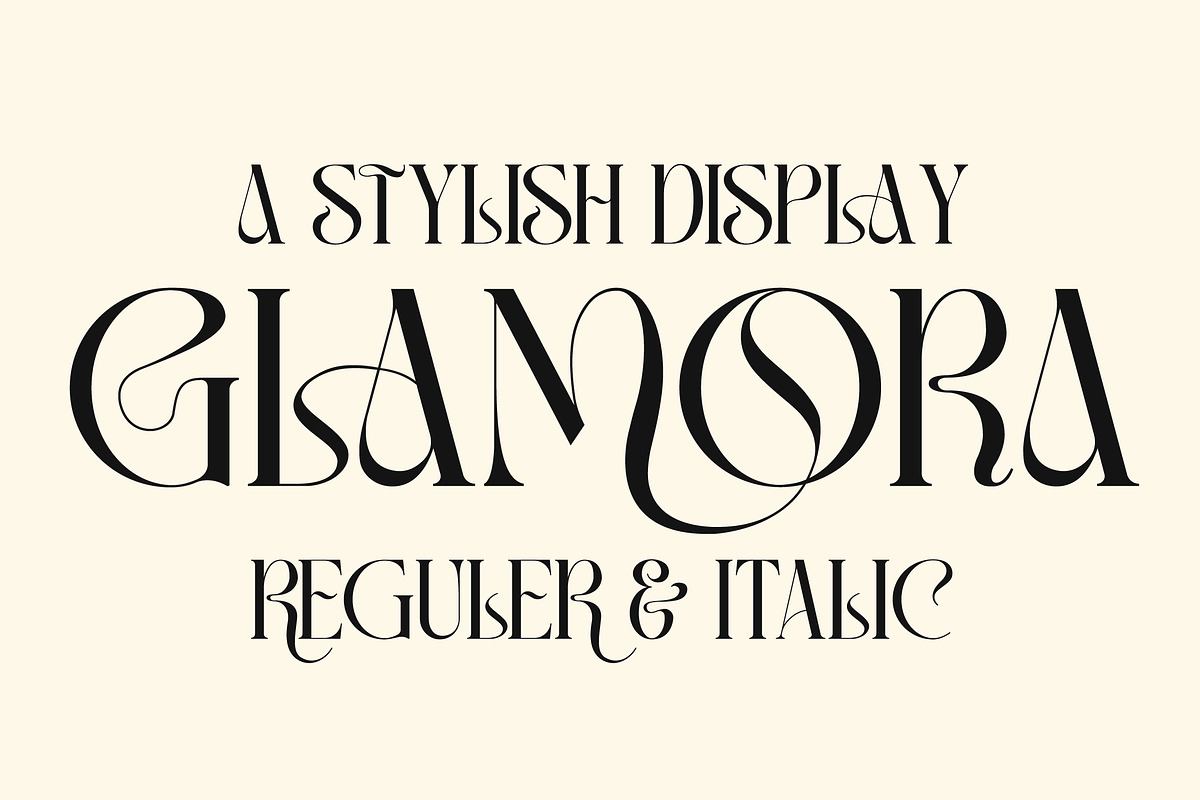
Elevate your designs with the sleek, bold sophistication of Glamora Stylish Display Font Free Download. This contemporary display font combines elegance with modern style, making it perfect for high-end branding, editorial headlines, fashion promotions, posters, and luxury product packaging.
Glamora features sharp edges and unique letterforms, giving it a high-fashion, editorial feel. It includes uppercase and lowercase letters, numerals, punctuation, and stylistic alternates—perfect for testing refined, eye-catching layouts in both print and digital formats.